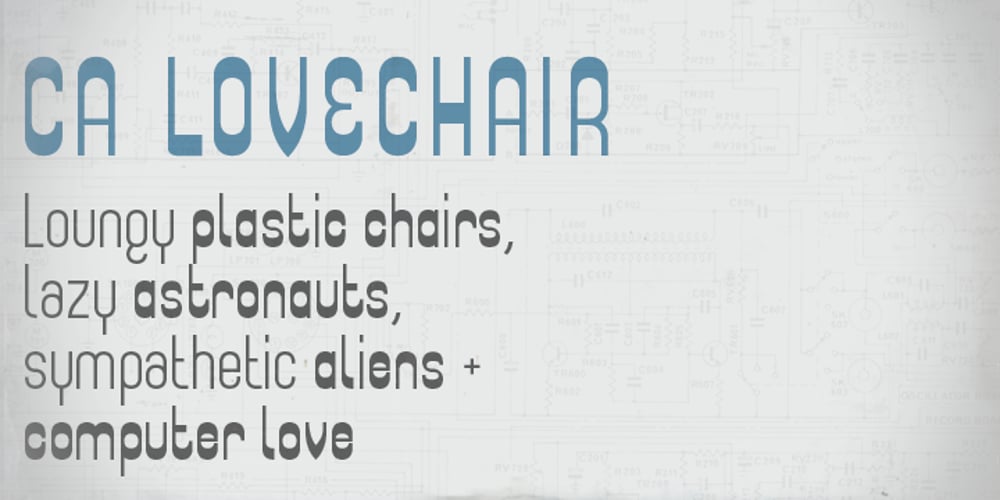
CA Lovechair Font Family was designed by Stefan Claudius and published by Cape Arcona Type Foundry. CA Lovechair contains 2 styles and family package options. Made to revive the feeling of the times of loungy plastic chairs, lazy astronauts and sympathetic aliens, comes our evergreen: lovechair.